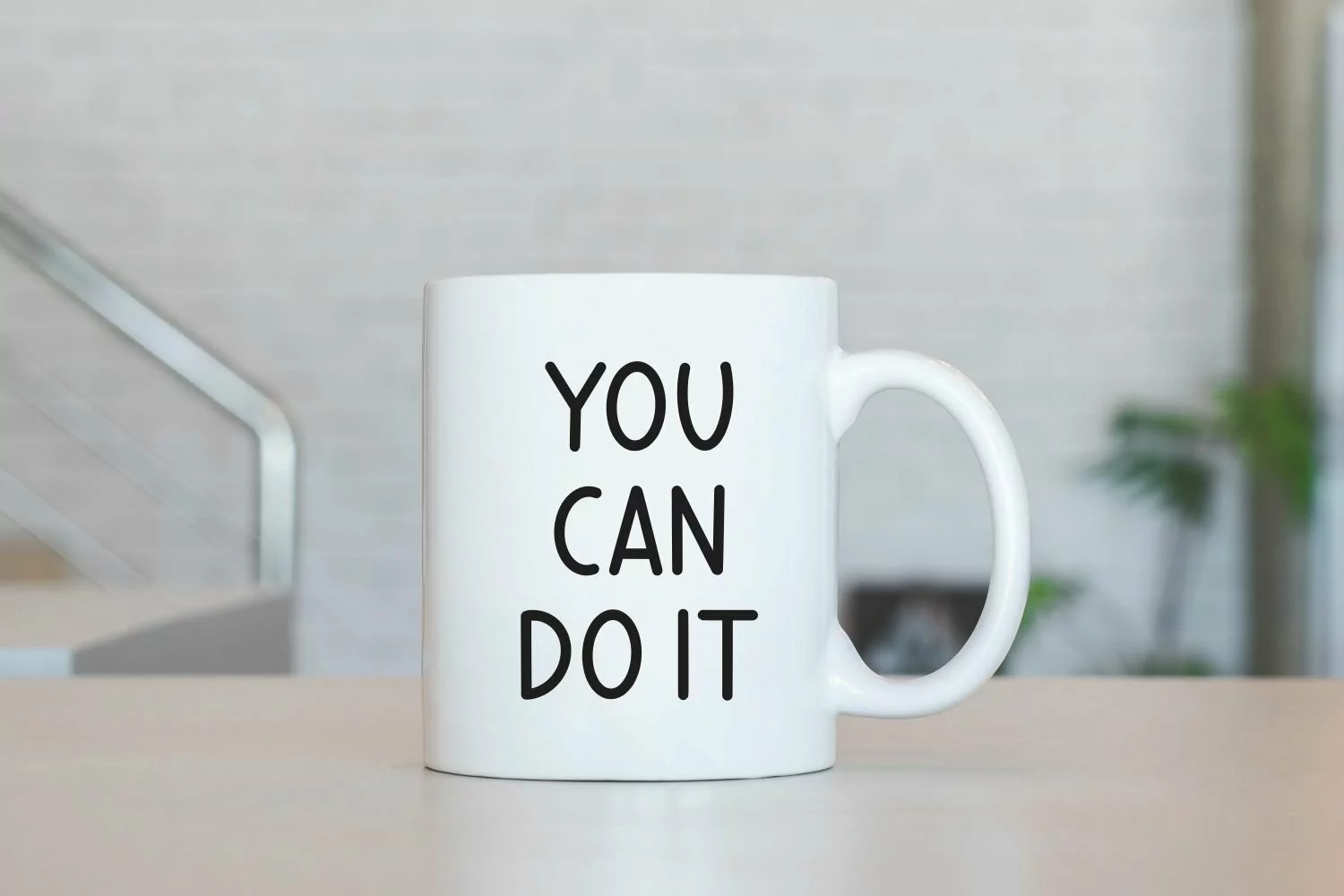
WEEKLY PLANNER
Weekly Planner is a clean, simple, and smart-looking handwriting font.
This font is ideal for crafting, branding, decorating, farmhouse designs, shirts, SVG designs, branding, blogs, logos, invitations, and more!
Also with their help, you can create a logo or beautiful frame for your home.
Or just use it for your business, book covers, stationery, marketing, magazines, and more.
Fall in love with its incredibly versatile style and use it to create spectacular designs!
Use this font for any crafting project that requires a personalized look!